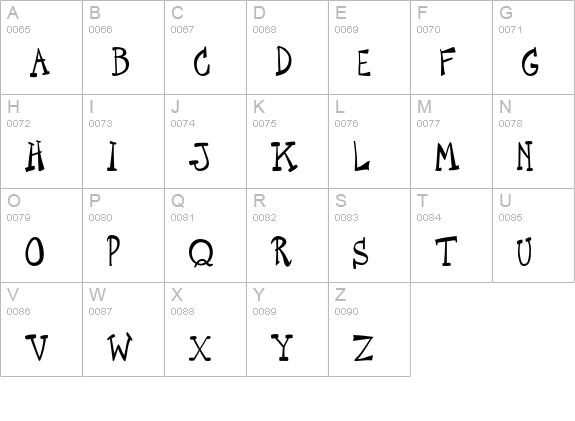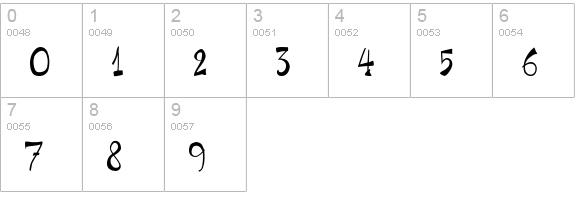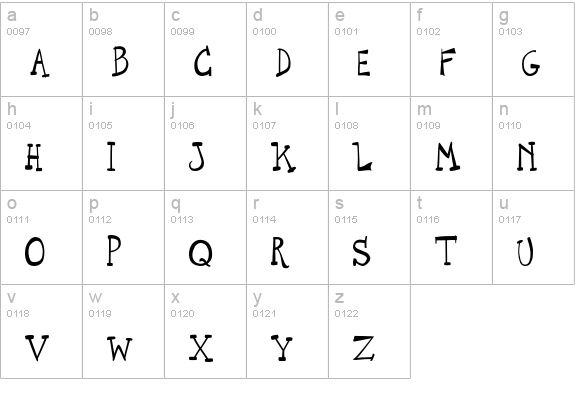
P22CageText Font Details
P22CageText is a captivating and unique font that effortlessly combines elegance with a touch of edginess. Its intricate details and artistic elements make it a standout choice for any design project. With its bold and confident letterforms, P22CageText commands attention and adds a sense of sophistication to any text. The carefully crafted curves and sharp angles create a visually striking composition, making this font perfect for headlines, titles, and logos. What sets P22CageText apart is that it is freely available to download at FontsMarket.com. This means that designers and creatives can easily access this stunning typeface without any restrictions. Whether you're working on a personal project or a commercial venture, P22CageText gives you the creative freedom to bring your vision to life. This font is designed with versatility in mind, making it suitable for a wide range of applications. From branding and advertising to editorial layouts and packaging designs, P22CageText adapts effortlessly to any design context. Its clean and legible appearance ensures optimal readability, even at smaller sizes. Not only does P22CageText excel in its aesthetics, but it also offers a seamless user experience. It is compatible with various design software and supports multiple languages, allowing designers from all corners of the globe to unleash their creativity. In conclusion, P22CageText is a must-have font for any designer seeking a captivating and versatile typeface. Its combination of elegance, edginess, and free availability at FontsMarket.com sets it apart from the rest. Download P22CageText today and unlock limitless possibilities for your design projects.